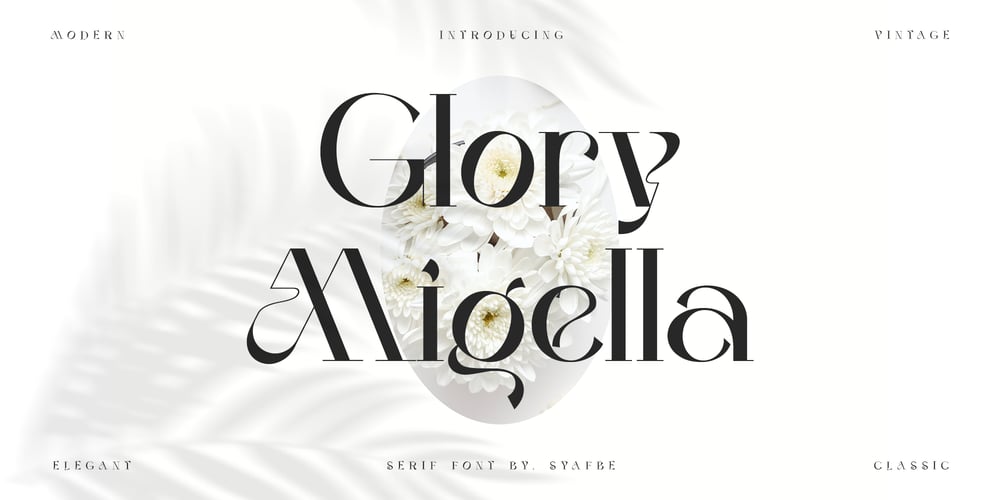
Glory Migella Font Family was designed by Syafwan Mus and published by Syafbe. Glory Migella contains 2 styles and family package options. The Glory Migella typeface is a unique serif/look font combination. Modern embellishments combine with classic fashion lowercase to make a very memorable pair. Perfect for that modern classy vibe. Very suitable for use for logos, magazines, etc. The Glory Migella typeface is a combination of serif typefaces/unique appearance. Modern embellishments combine with classic fashion lowercase to make a very memorable pair. Perfect for that modern classy vibe. Very suitable for use for logos, magazines, and others